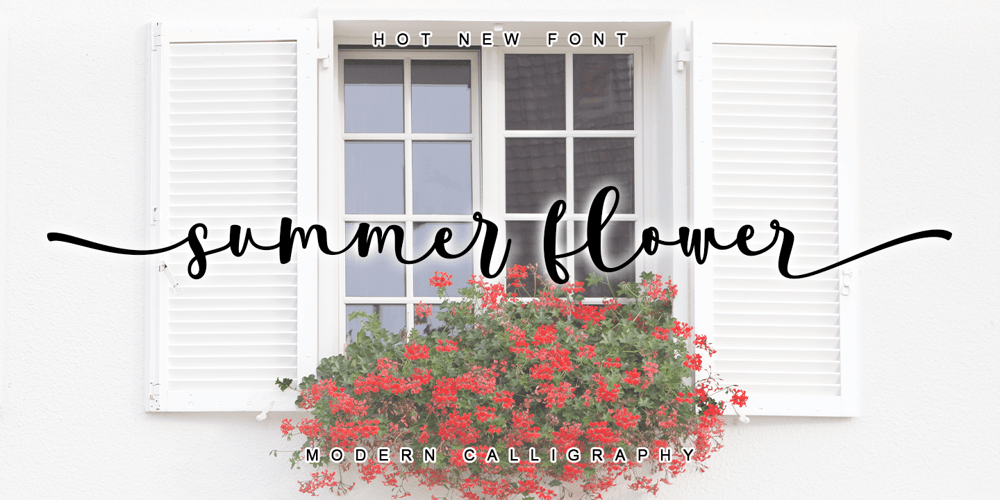
Summer Flower
Summer Flower font
Summer Flower Font Family was designed by Thomas Aradea and published by Letterara. Summer Flower contains 2 styles and family package options. Summer flower is a dazzling script font with a lovely atmosphere and spotless form, inspired by a timeless classic calligraphy. Not too thin and not too thick, balanced and varied, summer flower was designed to enhance the beauty of your projects. summer flower will turn any design project into a true stand-out. Add it to your most creative ideas and notice how it makes them come alive! This font is PUA encoded which means you can access all of the amazing glyphs and swashes with ease! It also features a wealth of special features including alternate glyphs and ligatures.